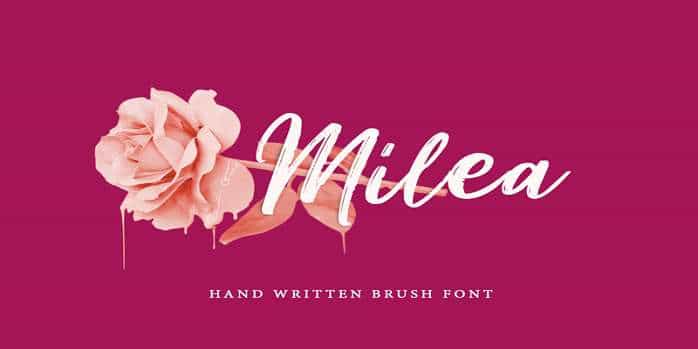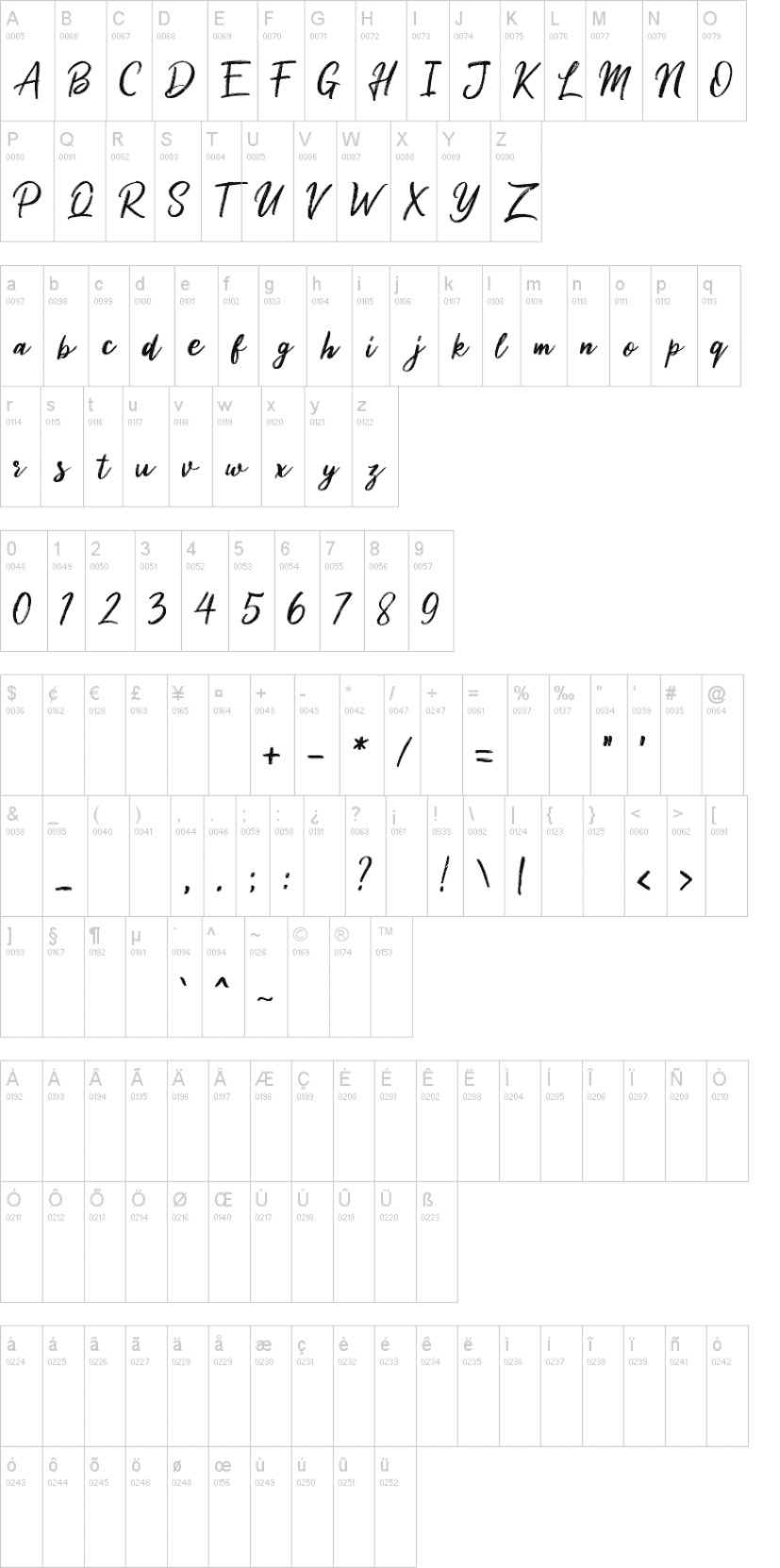
Presenting Milea Handwritten Brush Font, this script comes with a beautiful and quick natural dry brush strokes. Thus, this font is suitable for signature, branding, wedding, fashion, photography title, poster, social media, ad banner, book cover, packaging, handwritten quotes, greeting cards and advertising. With 2 fonts in a commercial package you can type more conveniently with some options for each letter and it looks like you were writing yourself.